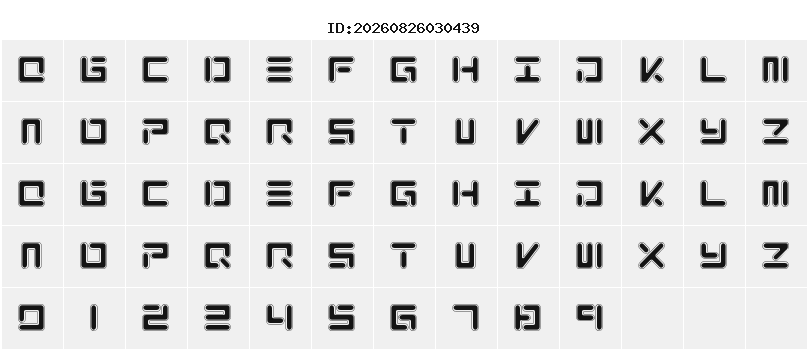
• Font Name: Xolo Neo
• Full Font Name: Xolo Neo
• Version: Version 1.00 August 15, 2013, initial release
About Xolo Neo.ttf
Xolo Neo.ttf is a modern, elegant sans-serif font designed for ultimate readability and visual harmony. Perfect for branding, headlines, web design, and print materials.